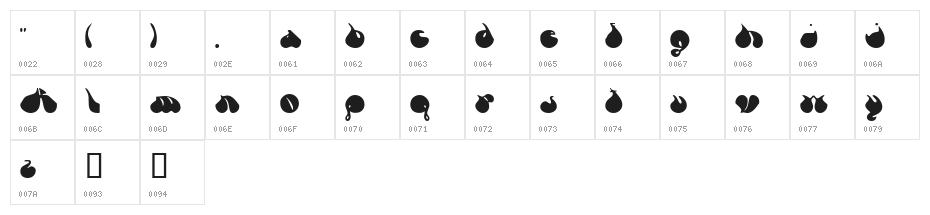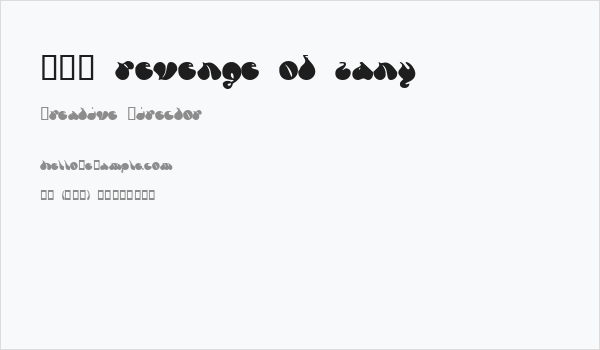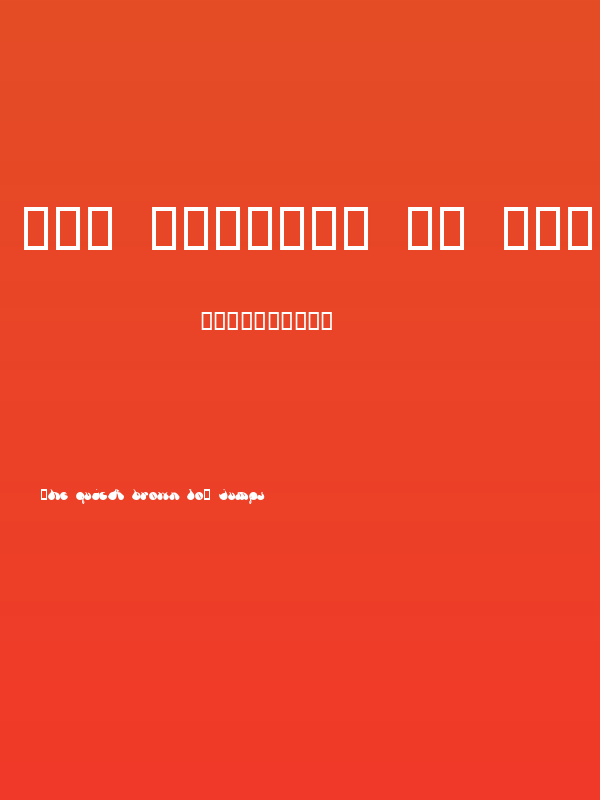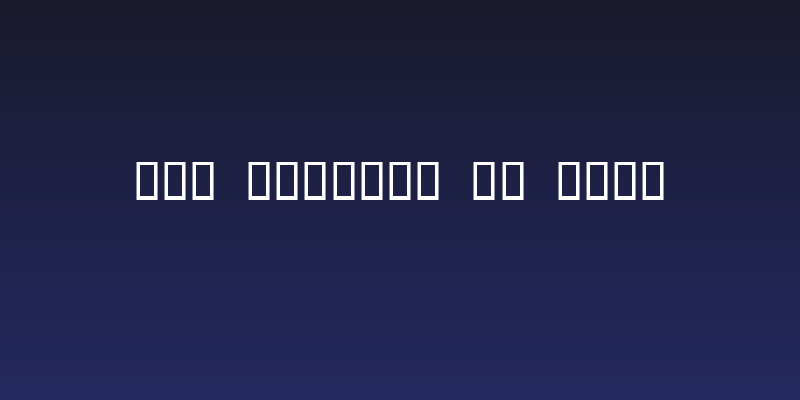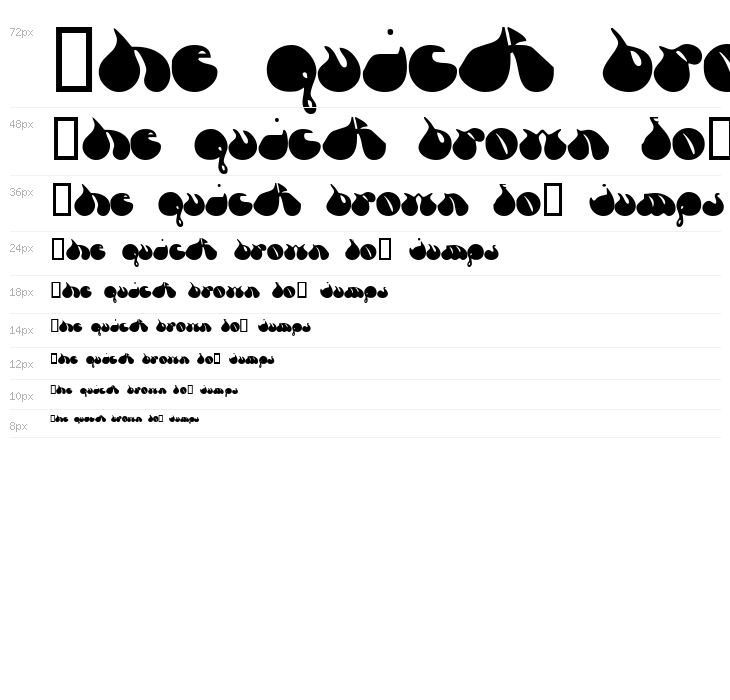
FSO revenge of zany Font
FSO revenge of zany Description
This font features a highly decorative and playful style, characterized by its bold, bulbous shapes and whimsical curves. The lowercase letters have a teardrop-like design, with exaggerated loops and swirls that give it a unique, artistic flair. The font's overall appearance is both eye-catching and unconventional, making it stand out in any design. Its distinctiveness is further enhanced by the lack of traditional serifs or uniformity, offering a free-spirited and creative vibe. The special characters maintain the same playful aesthetic, ensuring consistency throughout the typeface.
| Proposed Projects | Ideal for creative projects such as posters, album covers, children's books, and artistic branding. |